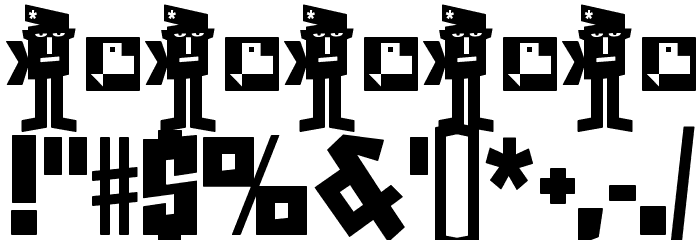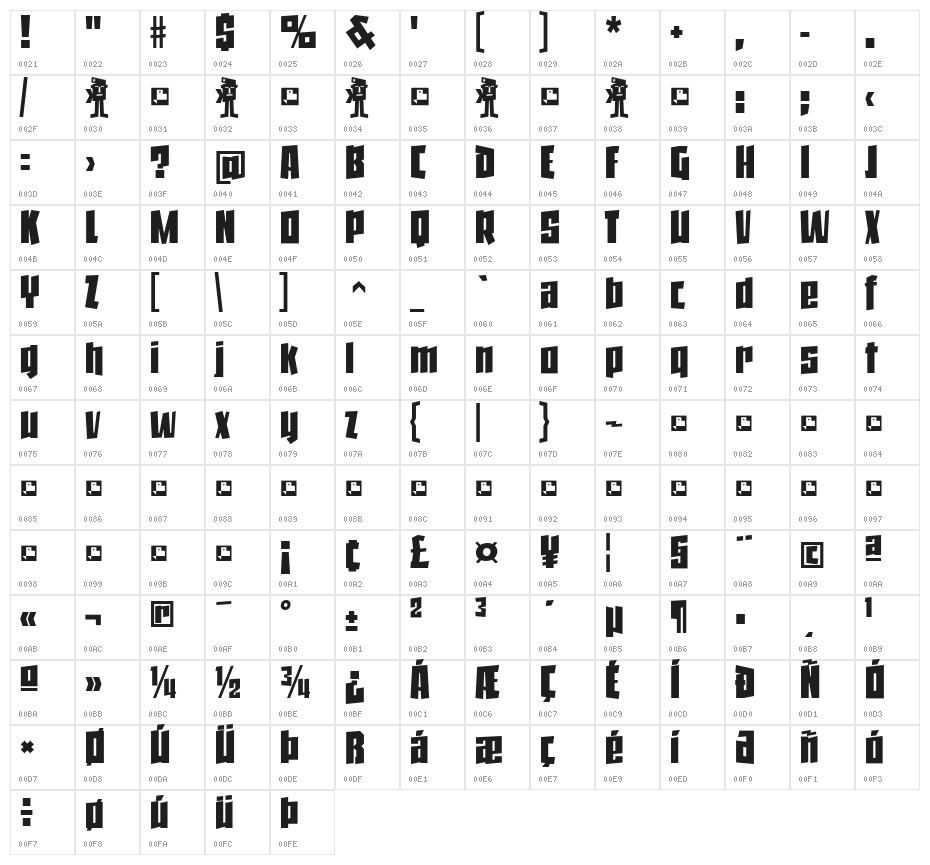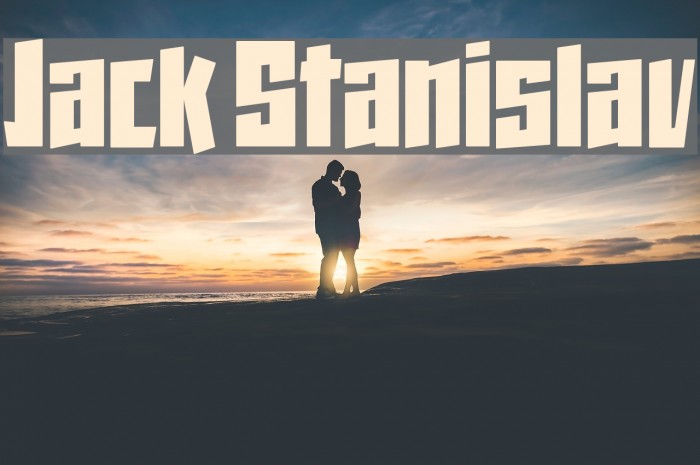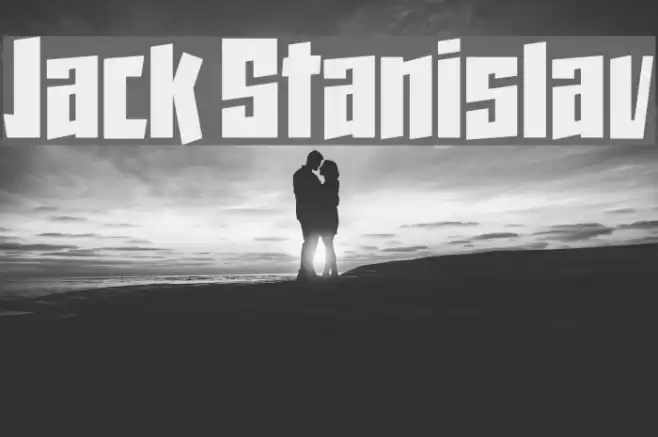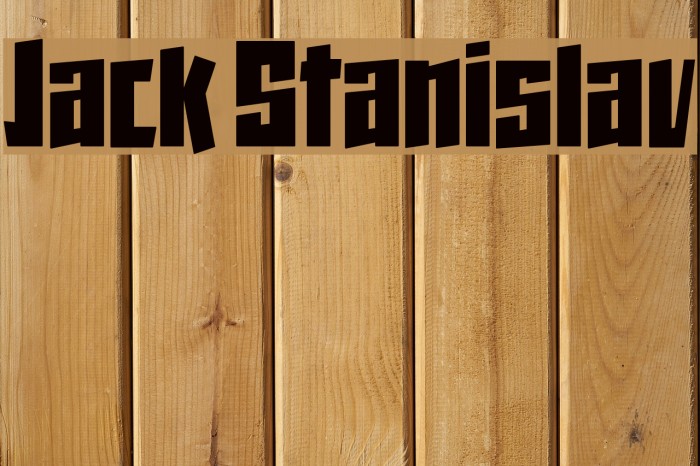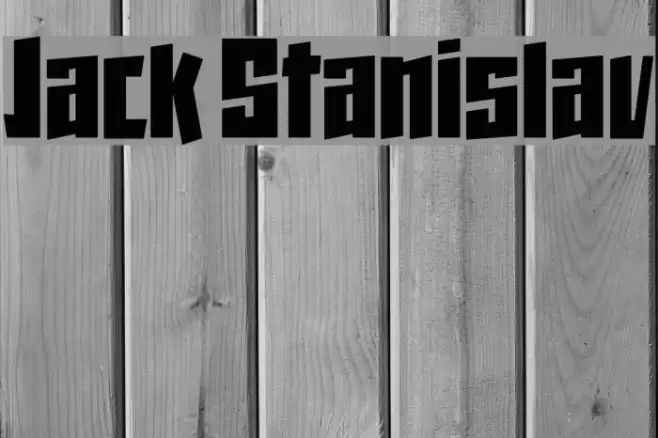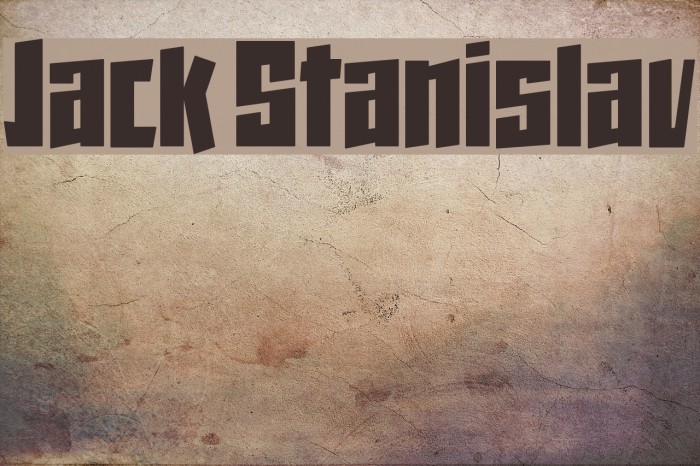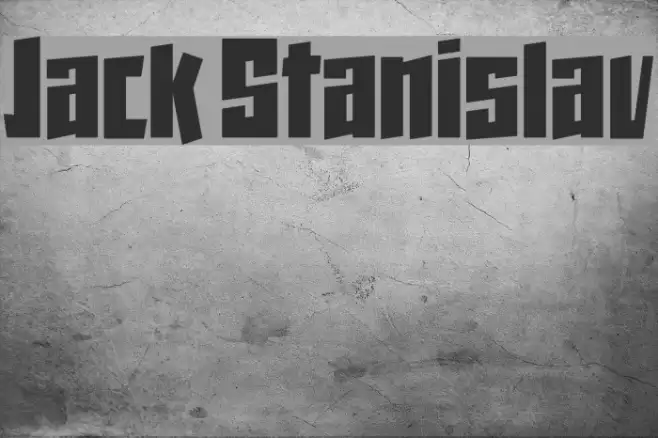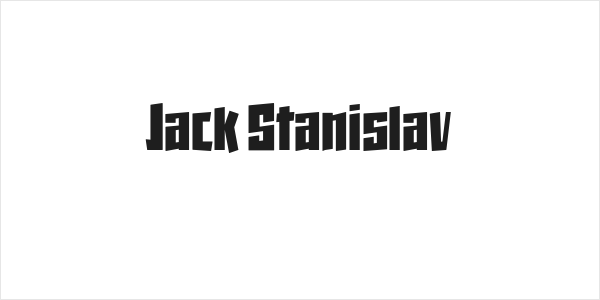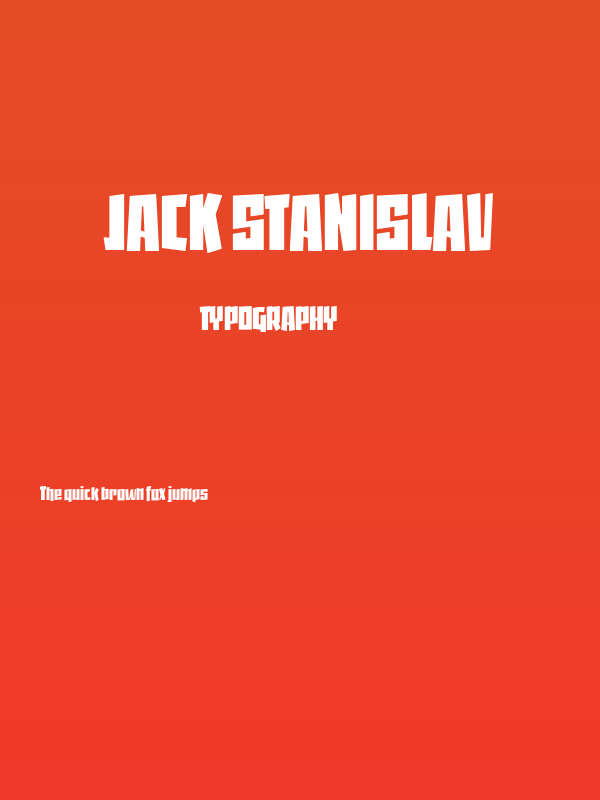
Jack Stanislav Font
Jack Stanislav Description
This font features a bold and striking design with a strong geometric influence. The characters are blocky and angular, giving them a modern and edgy appearance. The uppercase and lowercase letters maintain a consistent width, creating a uniform look across the text. The numbers and special characters follow the same bold style, ensuring cohesion throughout. This font is highly decorative, making it ideal for attention-grabbing headlines or logos. Its unique style is reminiscent of urban street art or digital pixel art, offering a contemporary and artistic vibe.
| Proposed Projects | Ideal for posters, album covers, video game graphics, and urban-themed branding. |